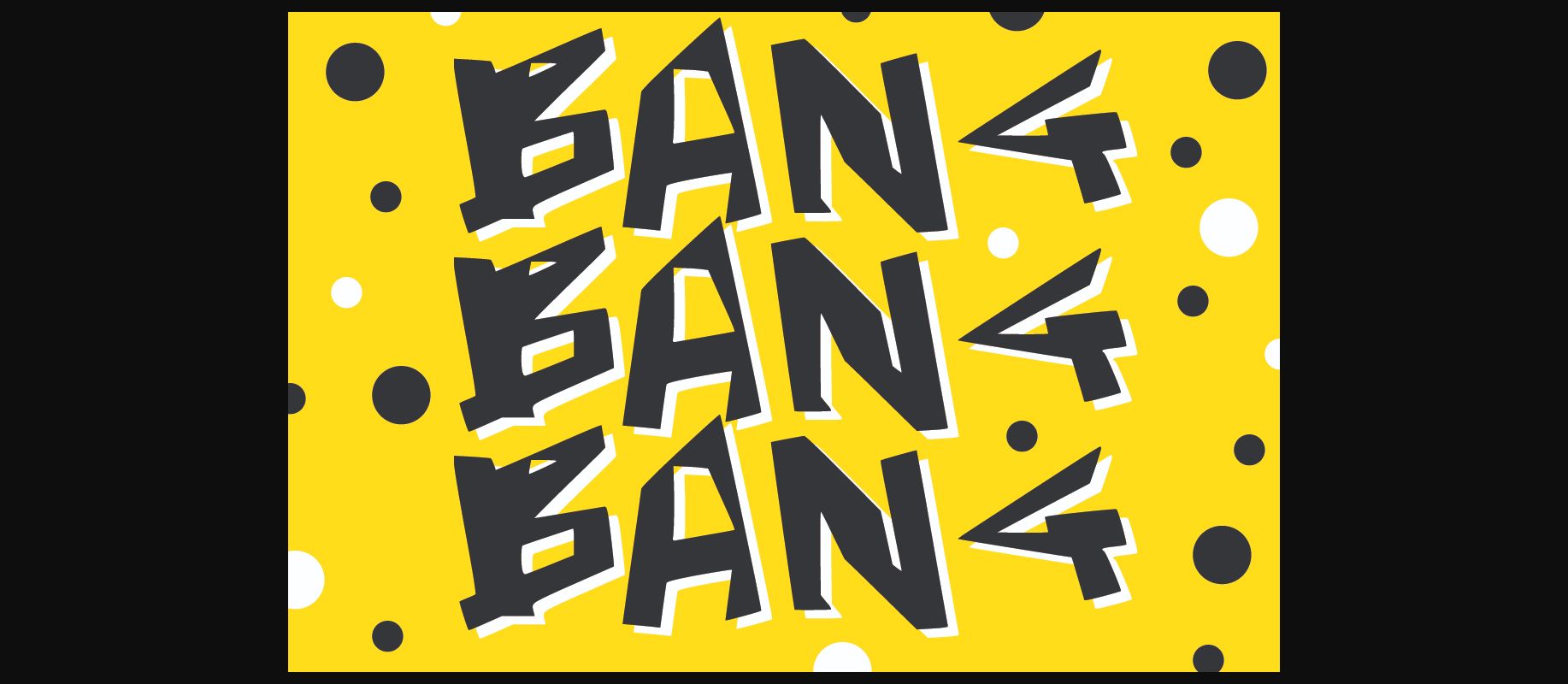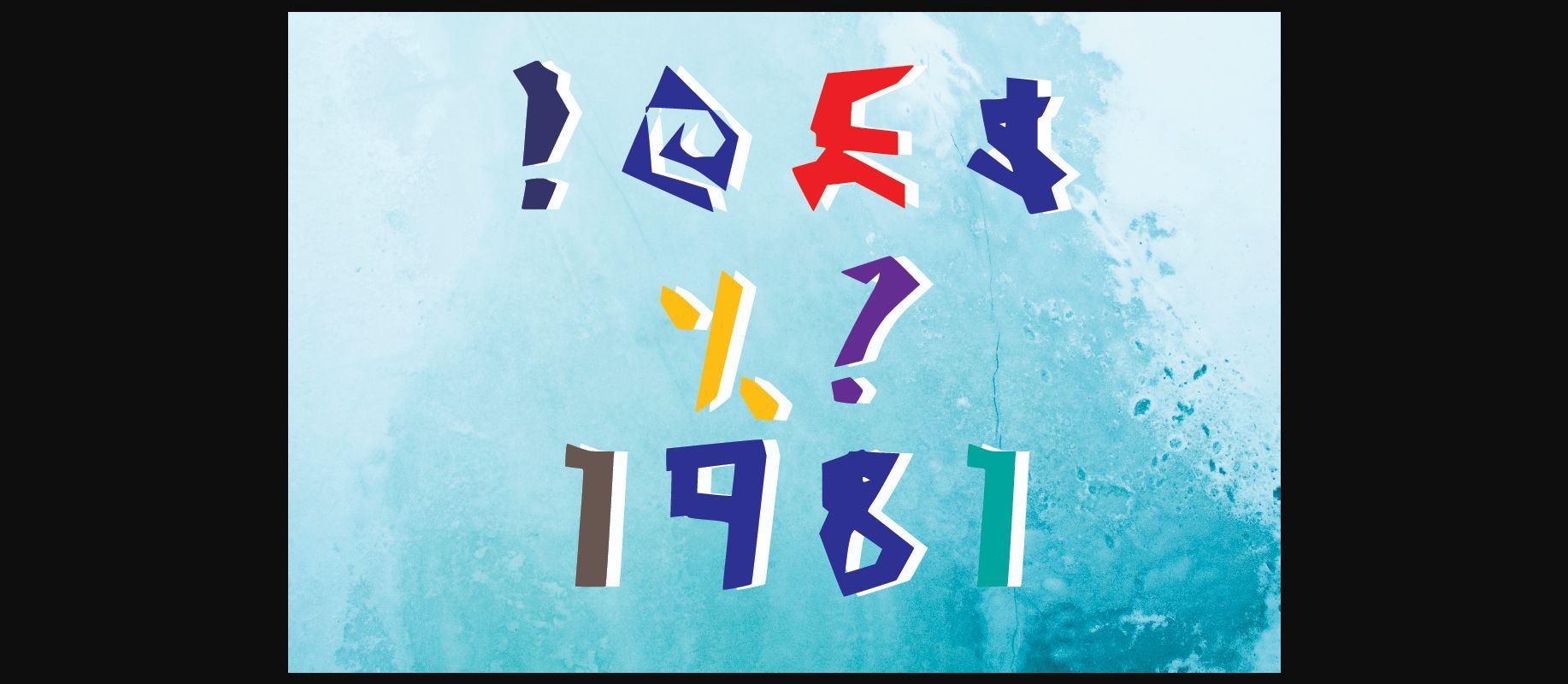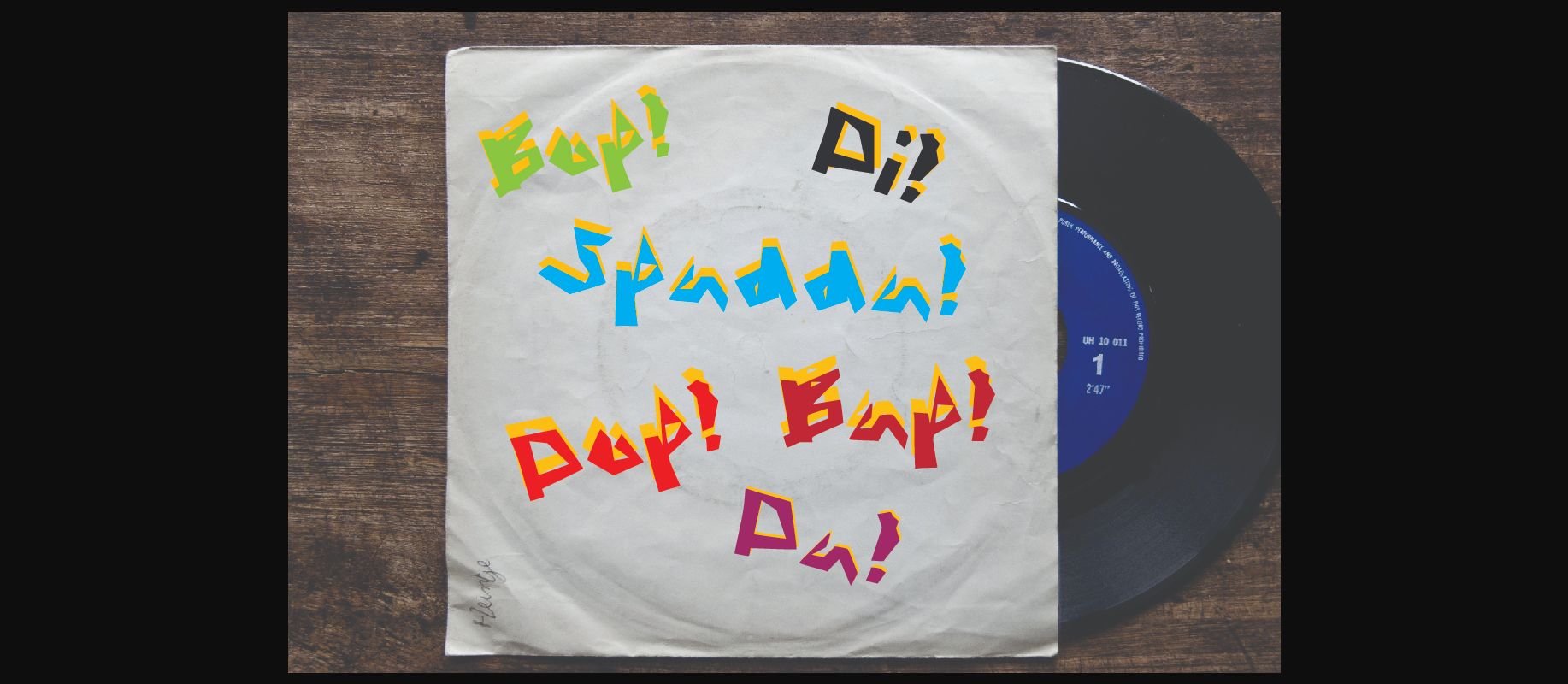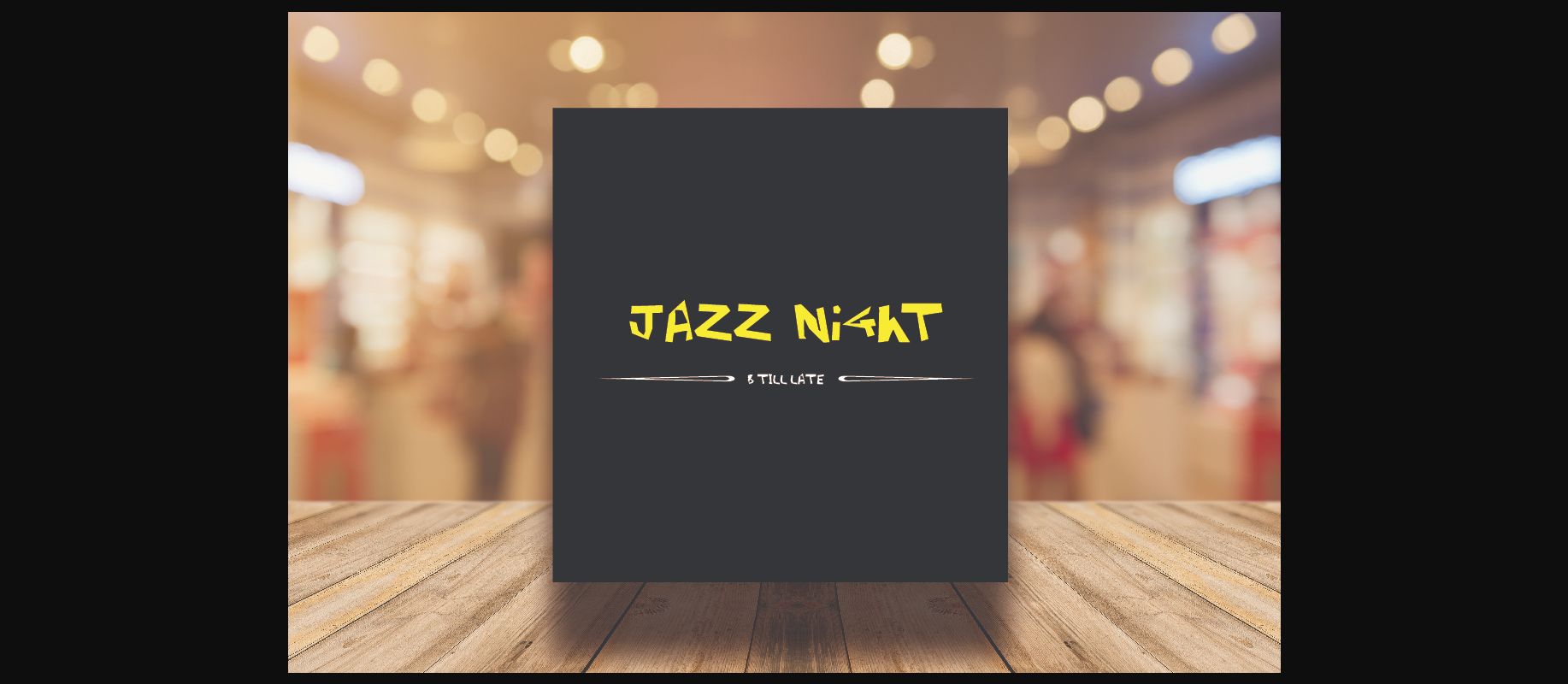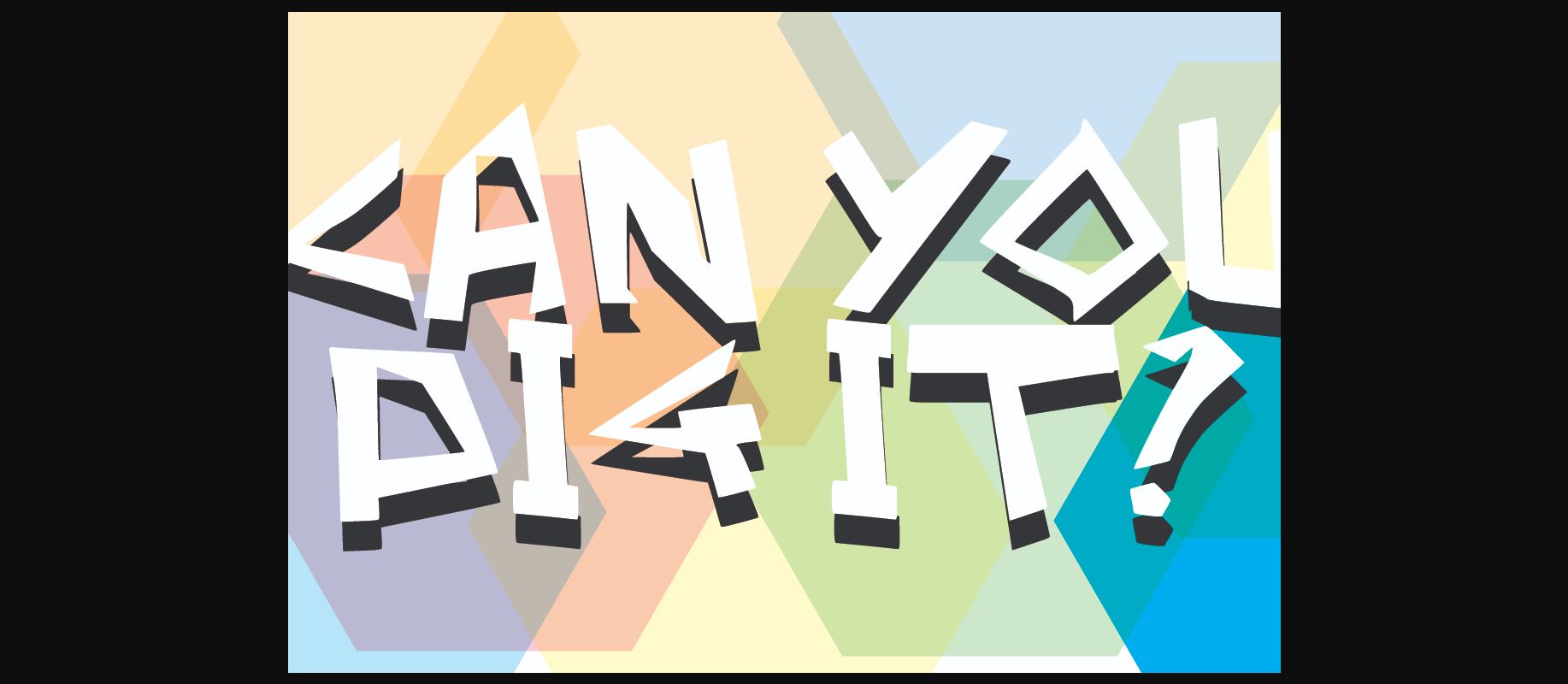
Bang Bang Bang Font
About Bang Bang Bang Font
Get your groove on with this funky, kooky jazz inspired font! Bang Bang Bang will turn any design project into a stand out!